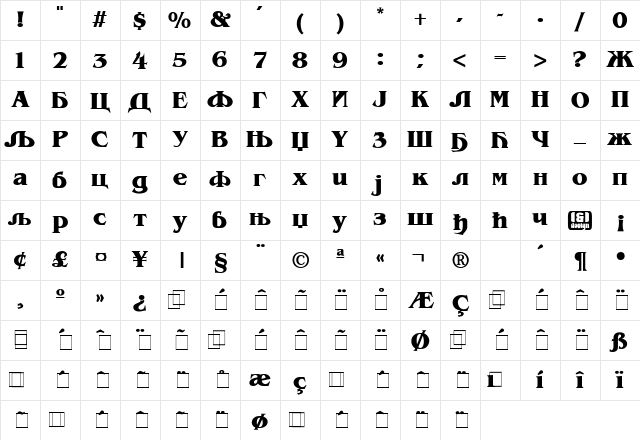
YU C Benguiat Bold
YU C Benguiat Family
YU C Benguiat Bold
Design Context for YU C Benguiat
YU C Benguiat is a composed and adaptable typeface that performs quietly and consistently across a wide range of design contexts. Its bold stroke weight gives it real presence on the page.